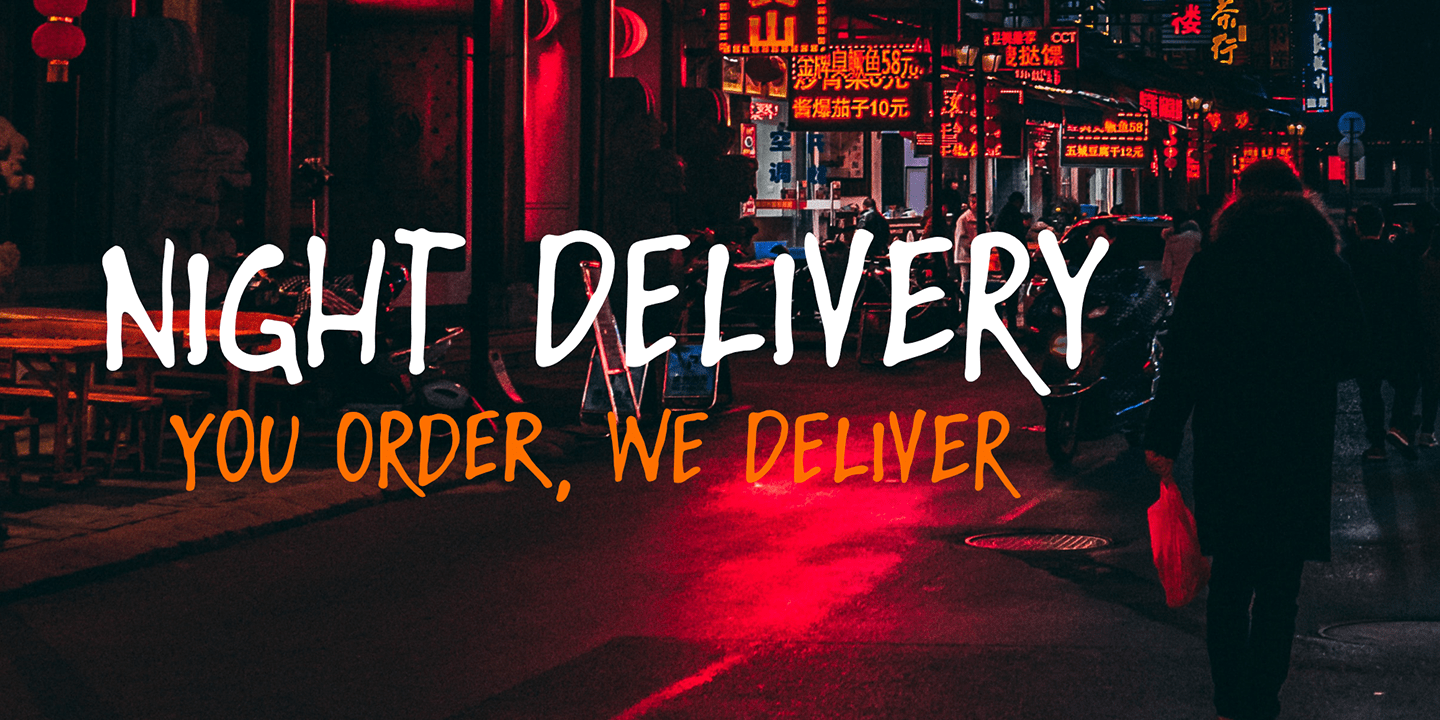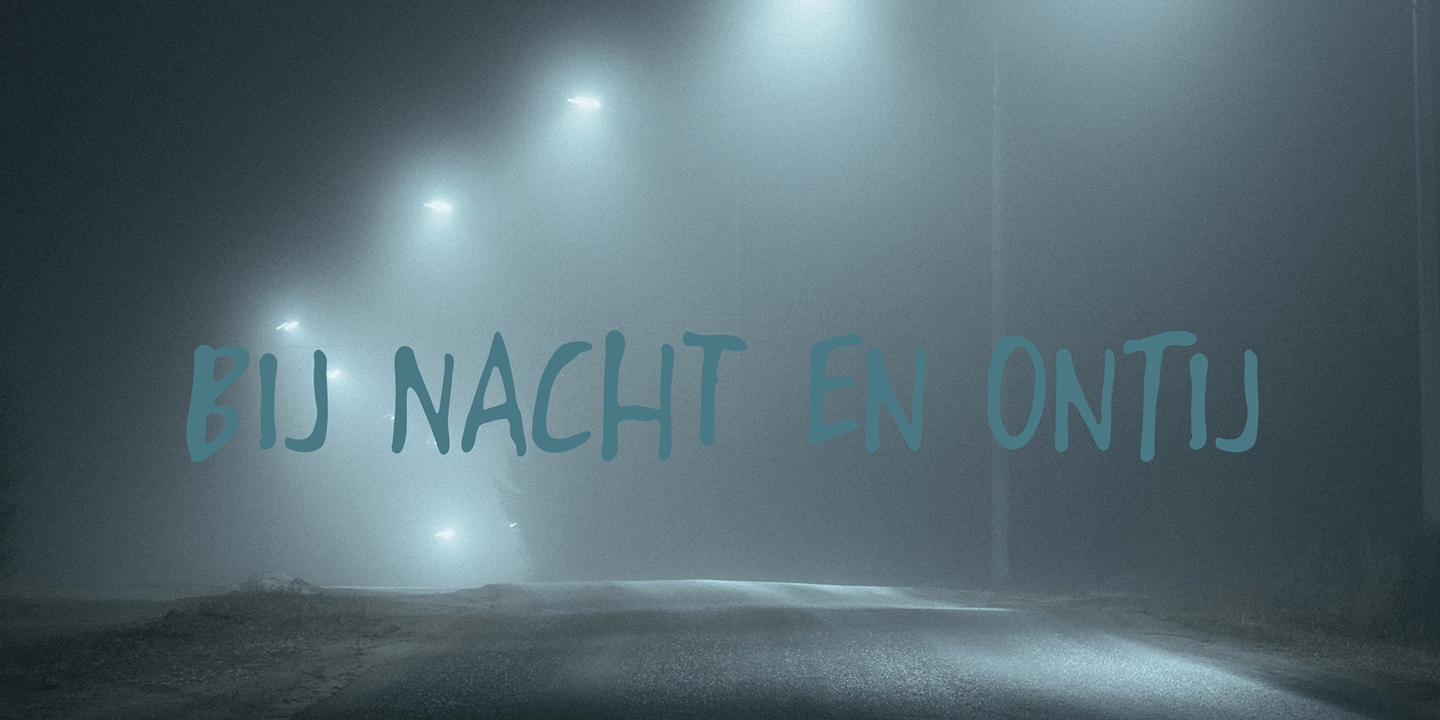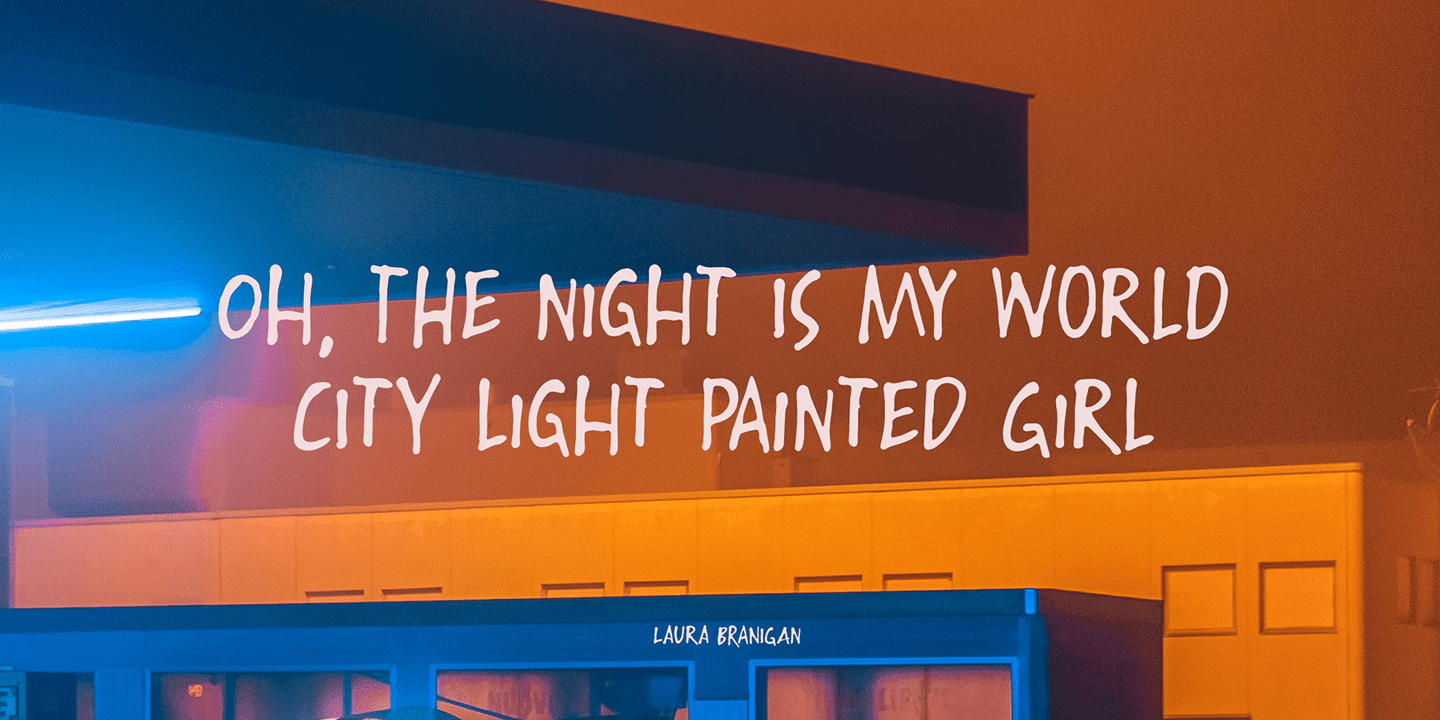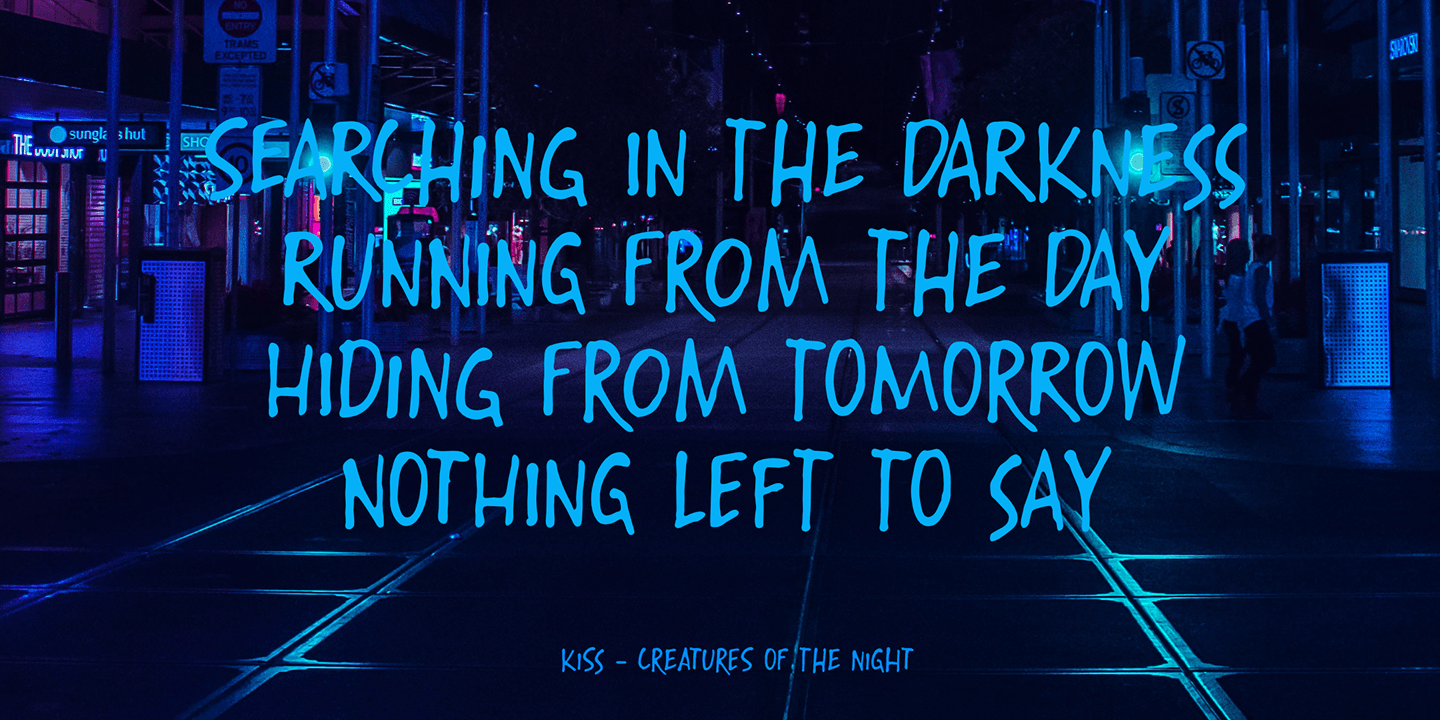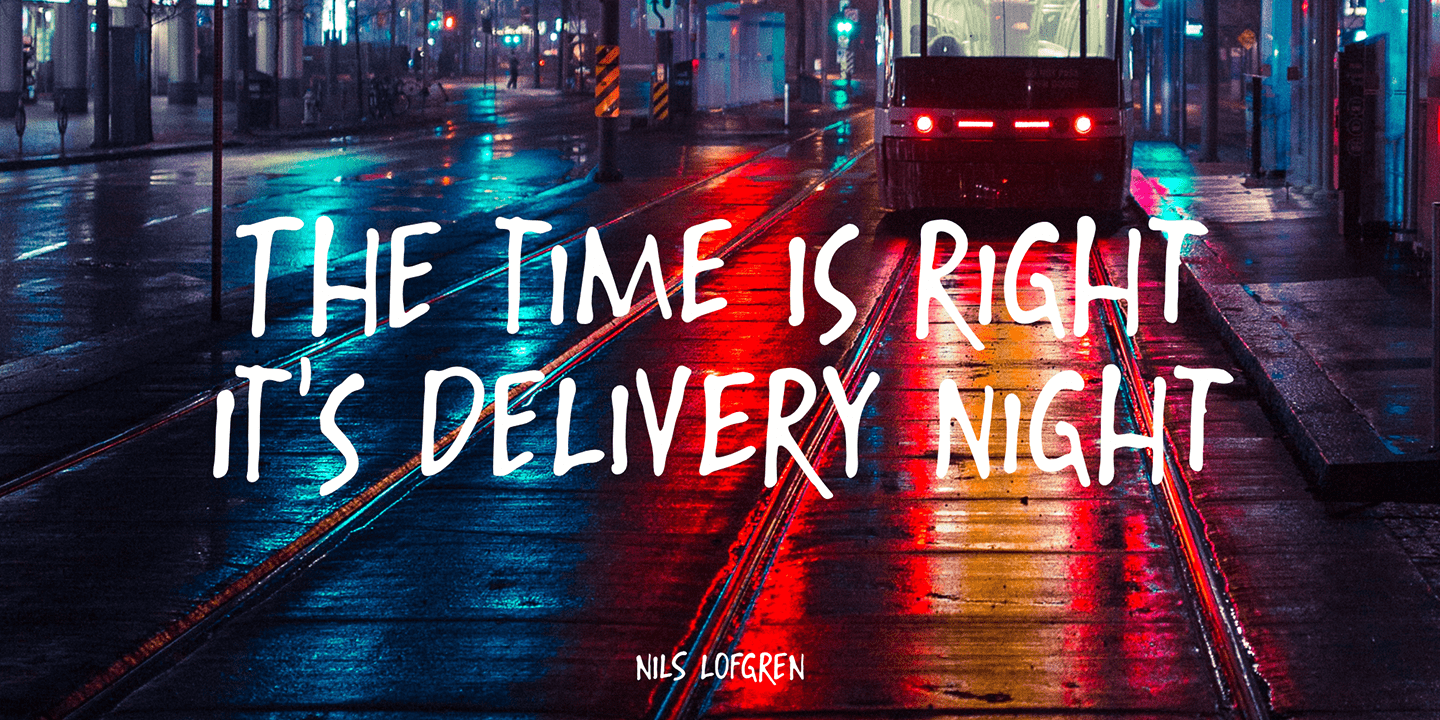
Night Delivery
Font Family by Hanoded
Since I live in a hamlet without any facilities whatsoever, I order a lot online. Most deliveries are done during daytime, but some companies prefer to deliver my stuff at night. When I was drawing out the glyphs for this font (using my Chinese ink and a broken paint stirrer), the door bell rang. It was a Night Deliver y . . .